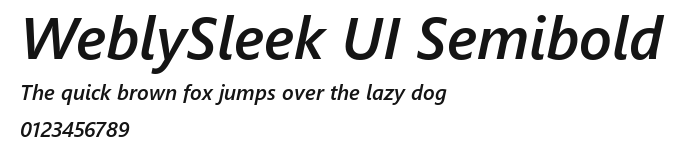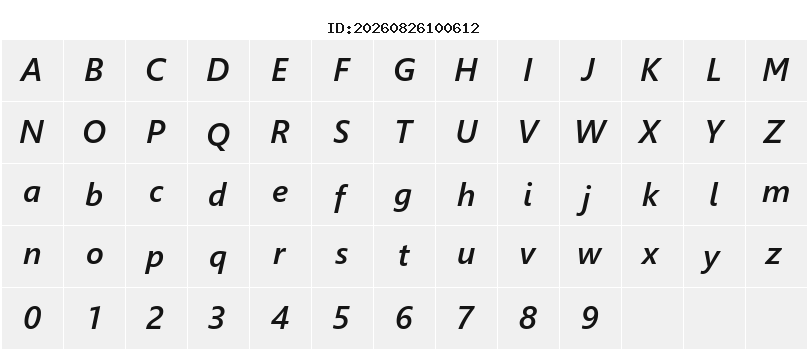
WeblySleek UI Semibold Preview
• Font Name: WeblySleek UI Semibold
• Full Font Name: WeblySleek UI Semibold Italic
About WeblySleek UI Semibold.ttf
WeblySleek UI Semibold.ttf is a modern, elegant sans-serif font designed for ultimate readability and visual harmony. Perfect for branding, headlines, web design, and print materials.